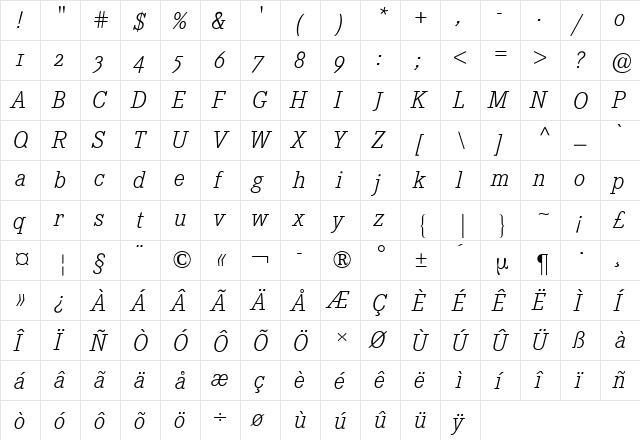
Corporate E Expert BQ Light Italic
Design Context for Corporate E Expert BQ Typeface
Corporate E Expert BQ is a composed and adaptable typeface that performs quietly and consistently across a wide range of design contexts. The slanted form adds forward momentum and visual energy. The delicate stroke weight brings airiness and refinement to layouts.
Pro Tip: Use Corporate E Expert BQ for emphasis, pull quotes, and subheadings where its slanted energy can add rhythm to the layout.